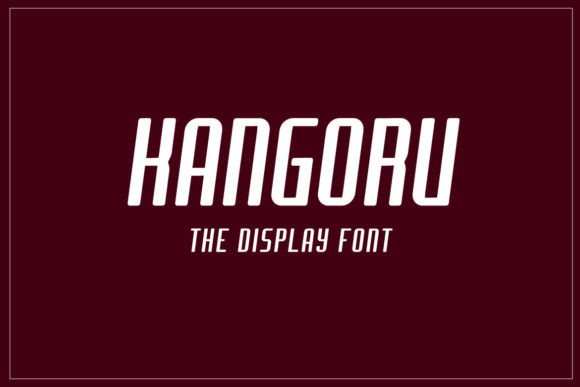
Kangoru Font: A Typographic Masterpiece for Unforgettable Designs
Unleash your creativity with Kangoru Font, a modern, clean, and eye-catching display font that will add a touch of elegance and sophistication to your designs. Whether you're working on posters, cards, book titles, headlines, news, banners, flyers, stationery, or anything in between, Kangoru Font is your perfect companion.
Bold and Beautiful: Kangoru Font's strong and distinctive characters make it a standout choice for headlines, titles, and other text elements that demand attention. Its clean lines and sharp edges create a sense of power and authority, ensuring that your message is conveyed with impact and clarity.
Timeless Elegance: With its classic yet contemporary design, Kangoru Font transcends trends and remains timeless. Its versatility allows it to seamlessly blend with a wide range of design styles, making it an essential addition to your font library. Whether you're creating a vintage-inspired poster or a cutting-edge website, Kangoru Font will elevate your designs with its timeless appeal.
Versatile Expression: Kangoru Font's diverse range of weights and styles provides endless possibilities for creative expression. From delicate hairlines to bold and powerful strokes, Kangoru Font adapts to your unique vision and allows you to convey a wide spectrum of emotions and messages. Create designs that are bold and assertive, soft and romantic, or anything in between.
Effortless Readability: Despite its striking visual presence, Kangoru Font maintains excellent readability, ensuring that your text remains clear and easy to understand. Its carefully crafted letterforms and generous spacing make it a pleasure to read, even in small sizes or on low-resolution screens.